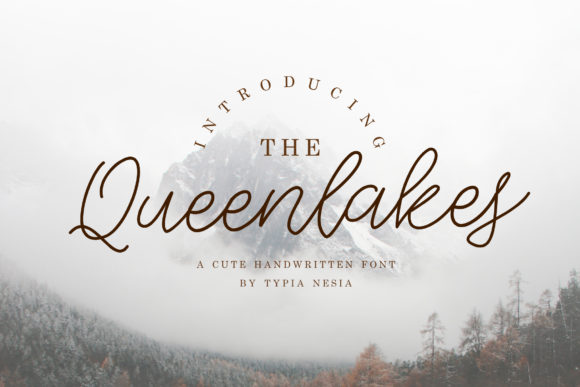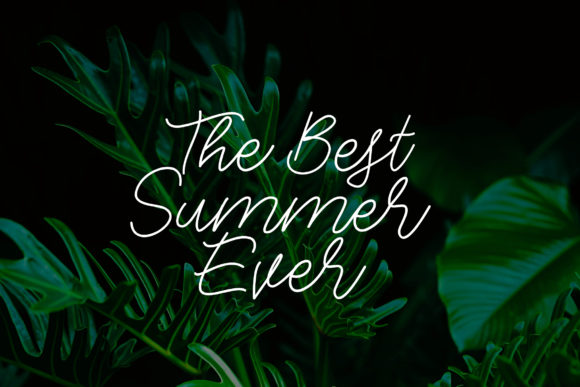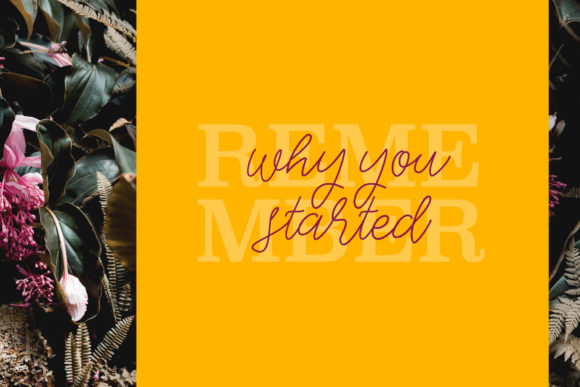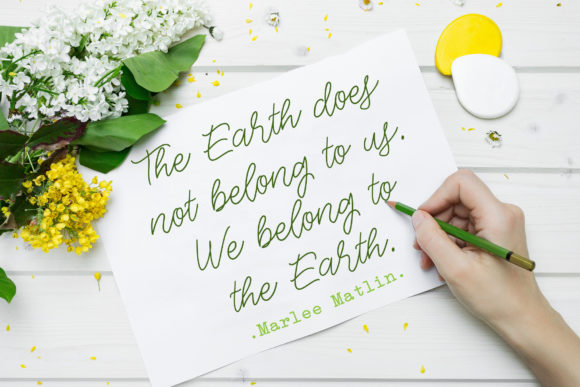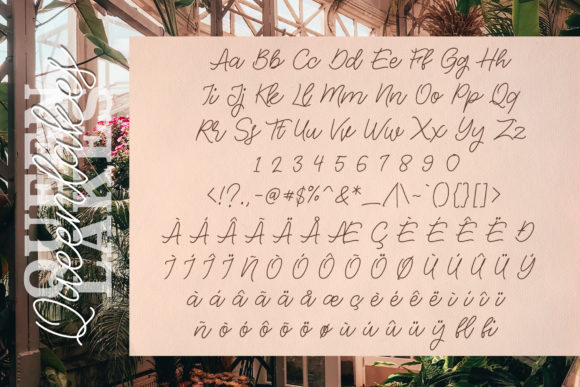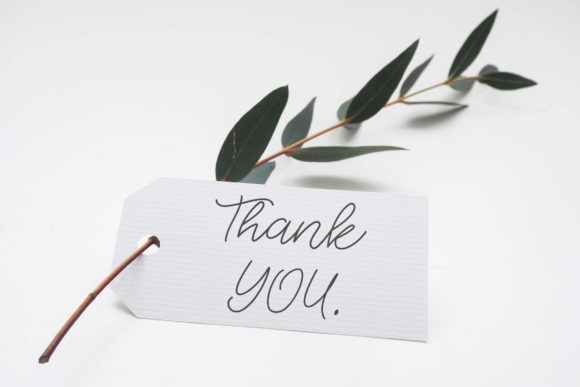
The Queenlakes Font
About The Queenlakes Font
The Queenlakes is a stunning and romantic handwritten font with a bold twist. It will add an authentic vibe to any creative idea!